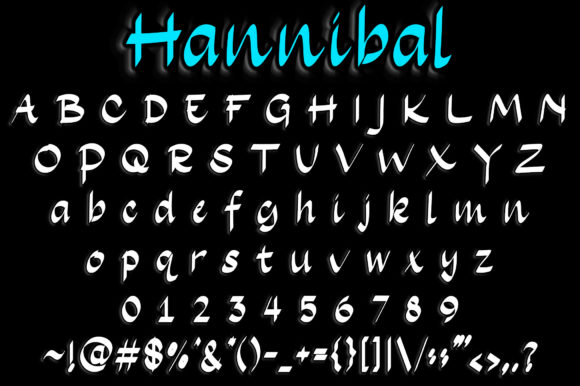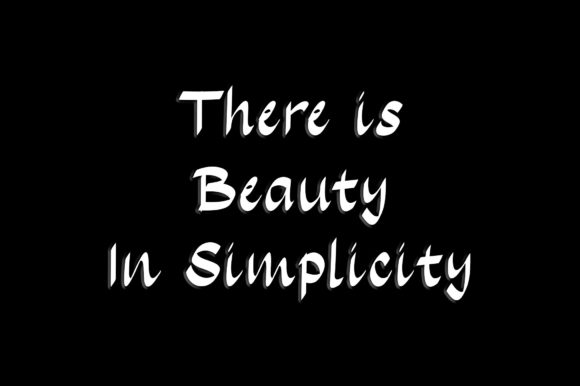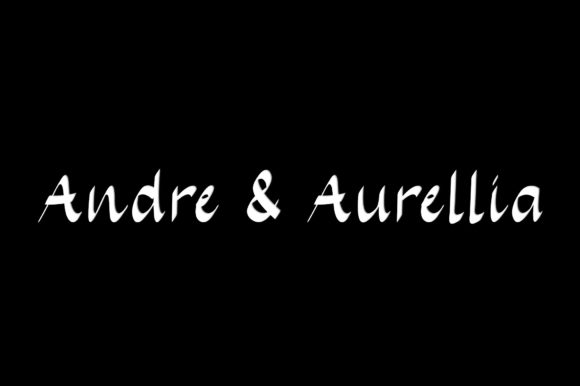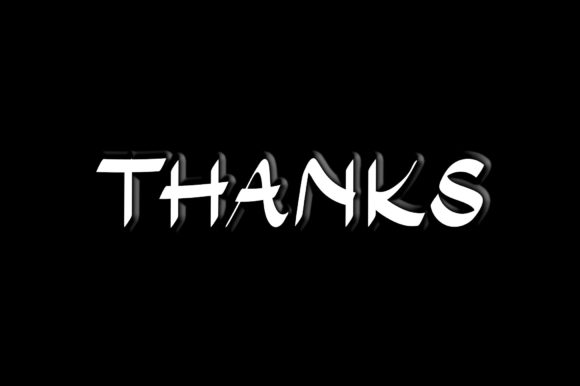
Introduction to Hannibal Font Font
Fonts play a crucial role in design, and the Hannibal Font font is a typeface that brings both character and versatility to any project. Whether you’re working on a branding project, a website, or a print design, the Hannibal Font font offers a unique style that can elevate your work.
Hannibal is a well-balanced and natural handwritten font.
Whether youβre looking for fonts for banner, wedding card or anything you can imagine, this font will turn any creative idea into a true piece of art .
Key Features of Hannibal Font Font
Why Choose Hannibal Font Font?
The Hannibal Font font is more than just a typeface β it’s a design tool that helps you communicate your message with style and clarity. Its unique character set and versatile design make it suitable for a wide range of applications, from elegant invitations to bold headlines.
With its carefully crafted letterforms and balanced proportions, the Hannibal Font font ensures readability and visual appeal across all mediums.
What makes Hannibal Font font special?
The Hannibal Font font stands out with its unique design, exceptional readability, and versatility across various design applications.